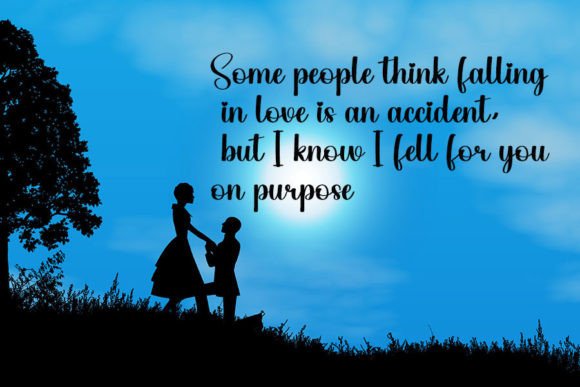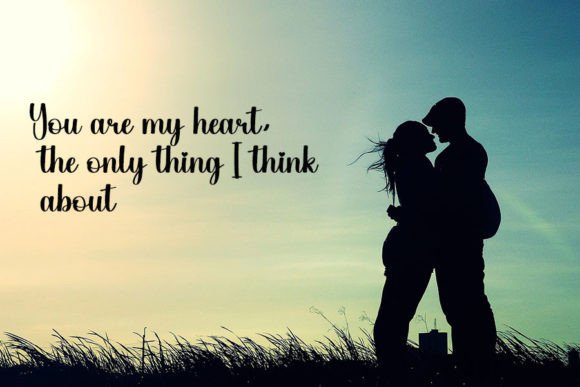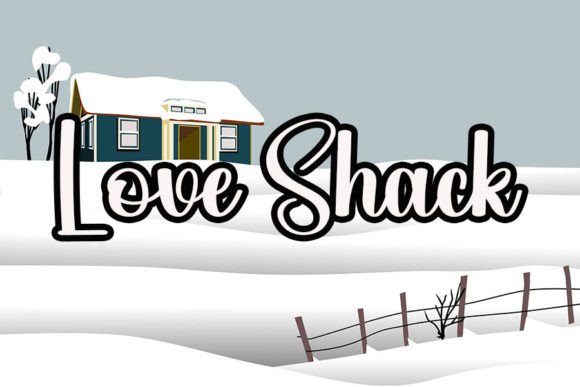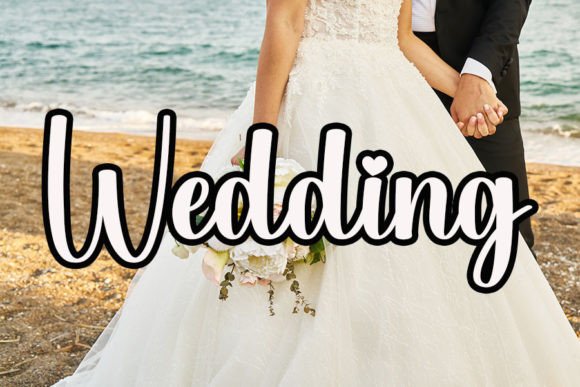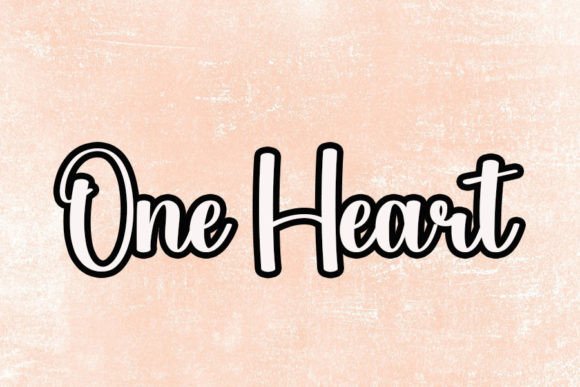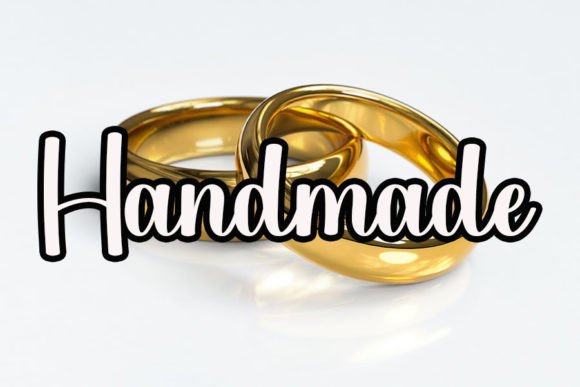
The Darling Font: A Timeless Beauty for Your Design Projects
I’ll never forget the moment I stumbled upon the Darling font. I was working on a project for a client who wanted a elegant and sophisticated look, but I was struggling to find the perfect font. That’s when I discovered Darling, and it instantly fell into my design love radar. Its unique, handwritten style with an elegant touch won me over, and I knew I had to share it with the world.
- ✨ Elegant and sophisticated feel
- 💕 Beautifully crafted with attention to detail
- 🎨 Versatile and suitable for various design projects
While Darling is an amazing font, there are a few things to keep in mind: 🤔
- ⚠️ Limited availability of stylistic alternates
- ⚠️ May not be the best choice for body text due to its elegant, cursive nature
If you love Darling, you might also enjoy these similar fonts:
- Lobster: A elegant, cursive font with a sophisticated feel. Use it for headings, titles, and logos.
- Pacifico: A beautiful, handwritten font with a relaxed, beachy vibe. Use it for creative projects, posters, and social media graphics.
- Great Vibes: A elegant, script font with a touch of sophistication. Use it for wedding invitations, event branding, and luxury designs.
- Alex Brush: A whimsical, handwritten font with a playful feel. Use it for creative projects, illustrations, and children’s books.
The Story Behind Darling: A Designer’s Inspiration
Darling was created by a talented font designer who wanted to craft a beautiful, handwritten font that would evoke a sense of elegance and sophistication. With inspiration from classic calligraphy and modern typography, Darling was born. Its unique style and attention to detail have made it a favorite among designers and crafters.
Q: What type of projects is Darling best suited for?
A: Darling is versatile and suitable for various design projects, including logos, branding, posters, social media graphics, and more.
Q: Is Darling a difficult font to read?
A: No, Darling is highly legible, even at small sizes. Its elegant, cursive nature makes it perfect for headings and titles.